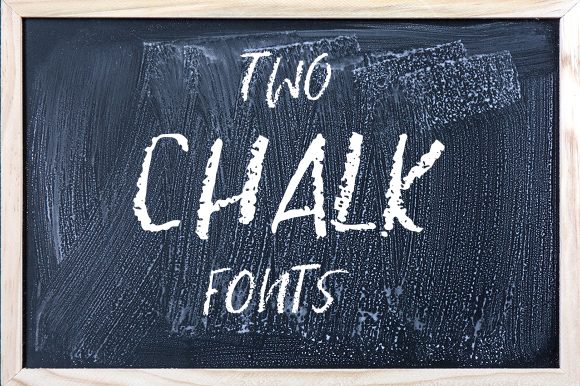
Dive into the world of Two Chalk, a captivating display font that adds a touch of effortless charm to your creative projects. Inspired by the raw beauty of chalk on a blackboard, Two Chalk brings a unique aesthetic that sets your designs apart.
With its bold and confident strokes, Two Chalk demands attention. Its clean lines and balanced letterforms provide a solid foundation for eye-catching headlines, captivating logos, and striking social media posts. Whether you're a seasoned designer or just starting, Two Chalk is the perfect font to add a touch of sophistication and personality to your work.
The boundless possibilities of Two Chalk will ignite your imagination. Create whimsical love letters that carry your heartfelt emotions with an artistic flair. Design posters and flyers that command attention with their bold and playful style. Craft social media graphics that pop off the screen, leaving a lasting impression on your audience. Two Chalk is your go-to font for creating visuals that resonate and leave an indelible mark.
Step into the spotlight with Two Chalk, the font that elevates your designs to new heights. Its versatility knows no bounds, allowing you to effortlessly create a wide range of visually stunning projects. From elegant wedding invitations to playful birthday cards, Two Chalk adapts seamlessly to any theme or style.
With Two Chalk, your creativity takes center stage. Its easy-to-use format and intuitive design make it a breeze to incorporate into your projects. Say goodbye to tedious font adjustments and hello to a streamlined creative process. Let Two Chalk be your artistic partner, helping you bring your vision to life with minimal effort.
Unleash the power of Two Chalk and embark on a creative journey that will leave you inspired and fulfilled. Its unique style and boundless versatility make it the perfect font for designers of all levels. Experience the magic of Two Chalk today and let your creativity soar.